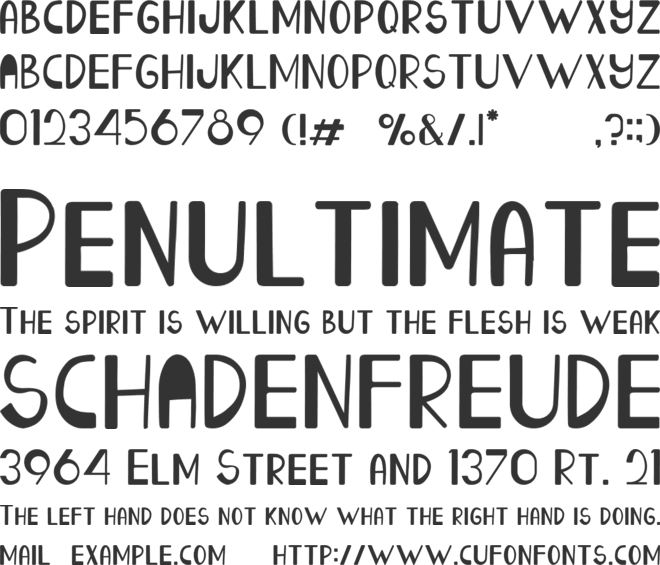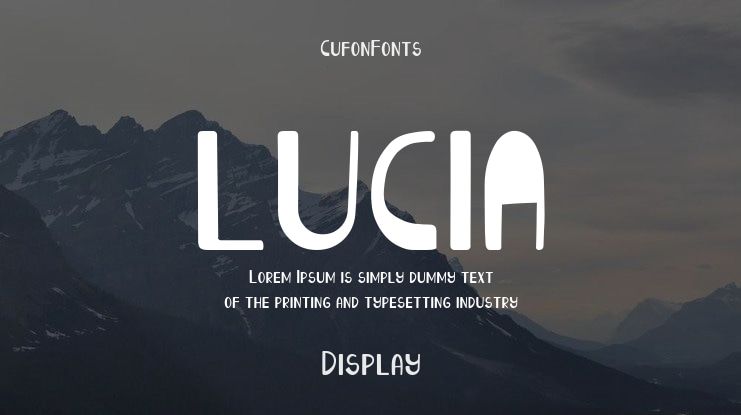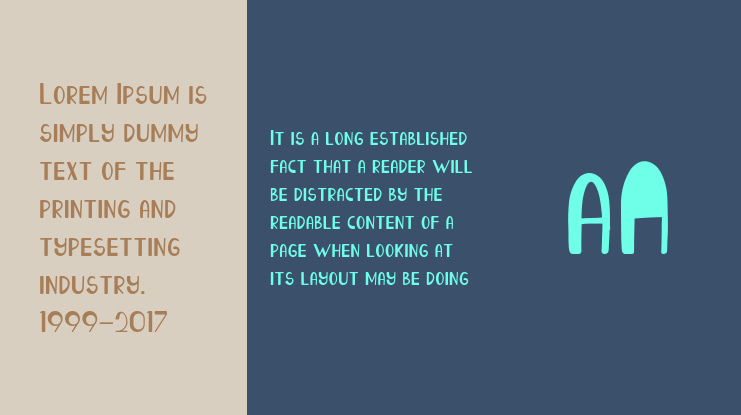
LUCIA Font
LUCIA is a sweet, bubbly display font with soft rounded curves and a playful bounce. Its cheerful, dainty letterforms bring a cute, girly charm to birthdays, baby showers, princess-themed branding, nursery art, greeting cards, and party banners. The whimsical characters pair beautifully with pastel colors and floral motifs for celebratory designs.